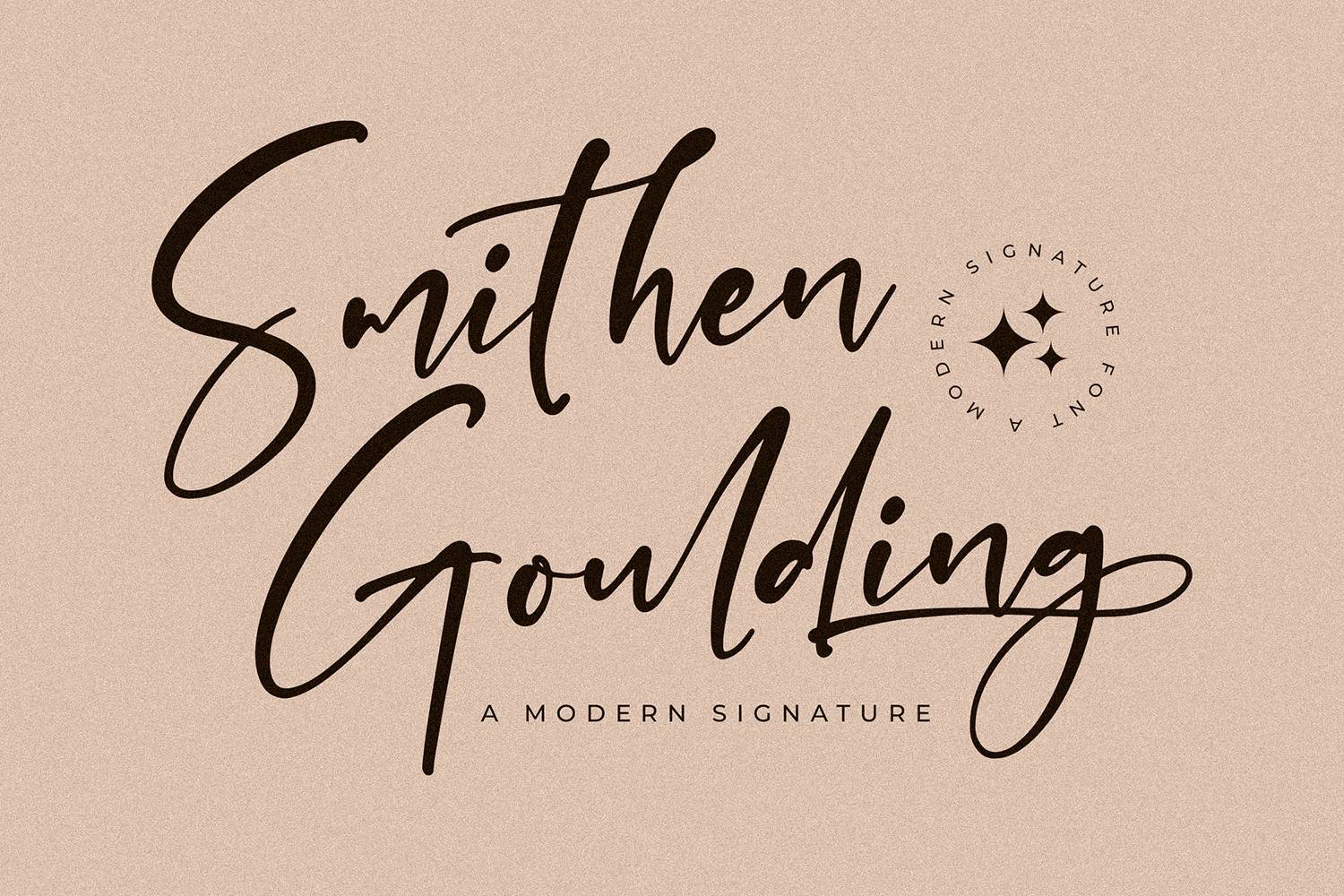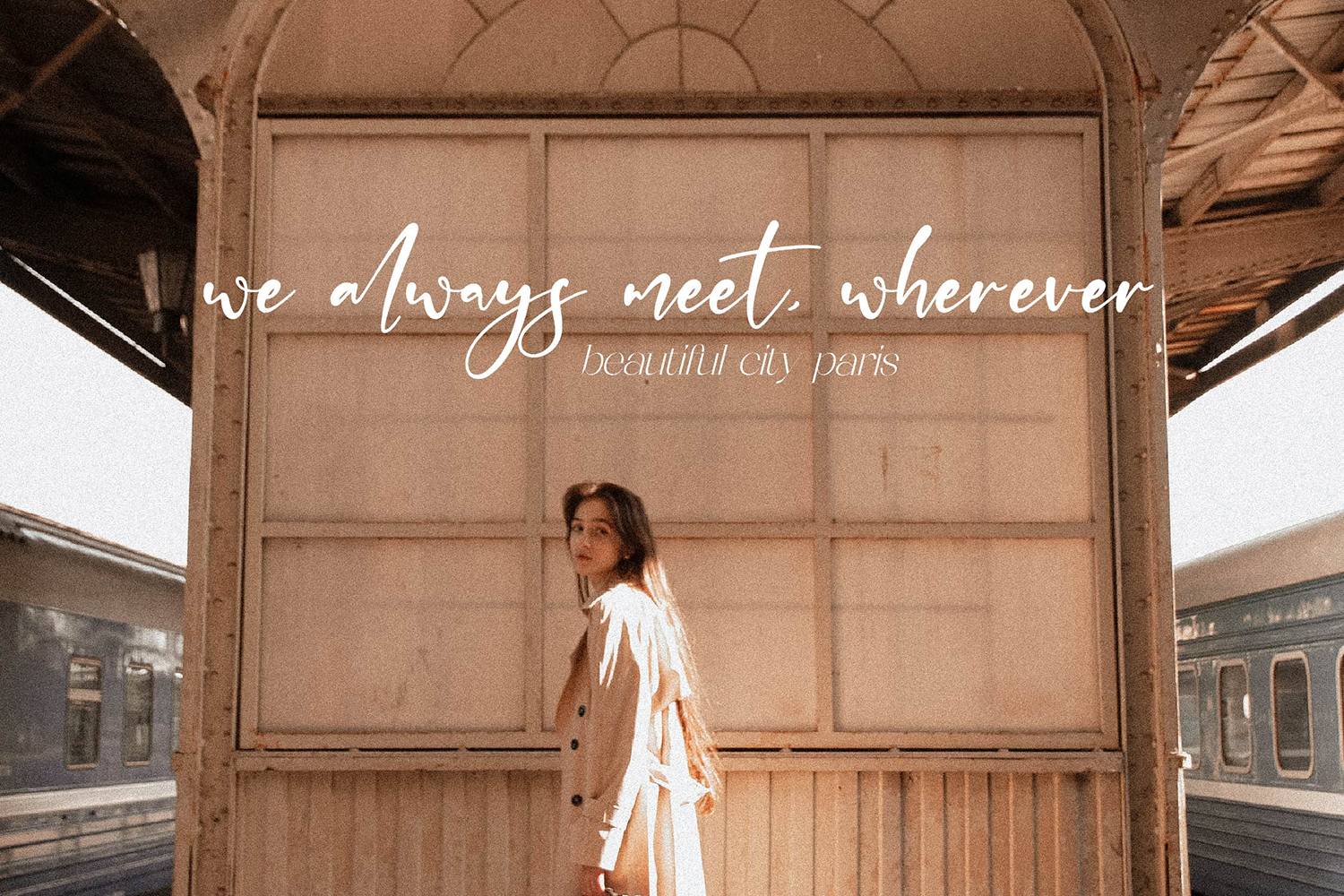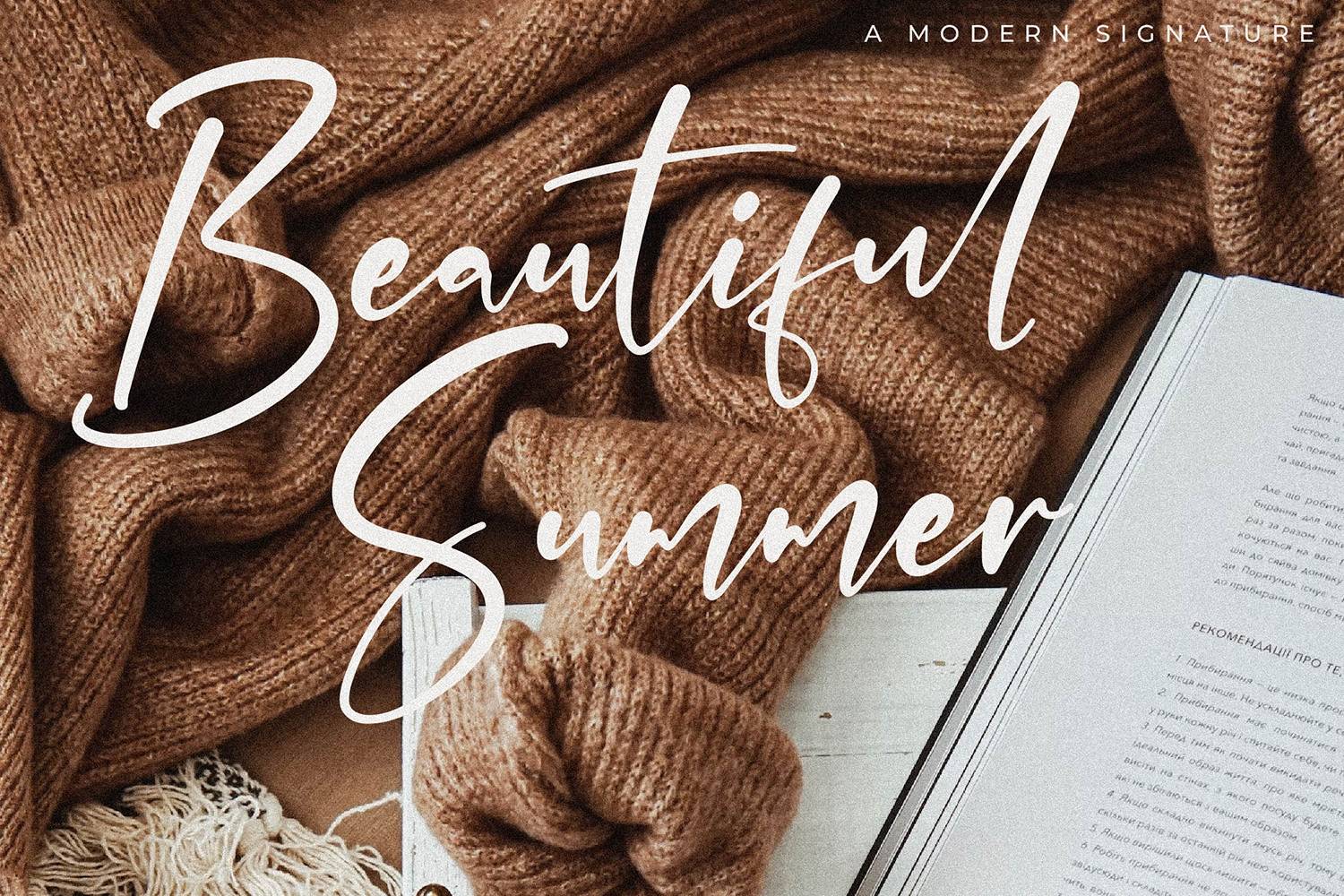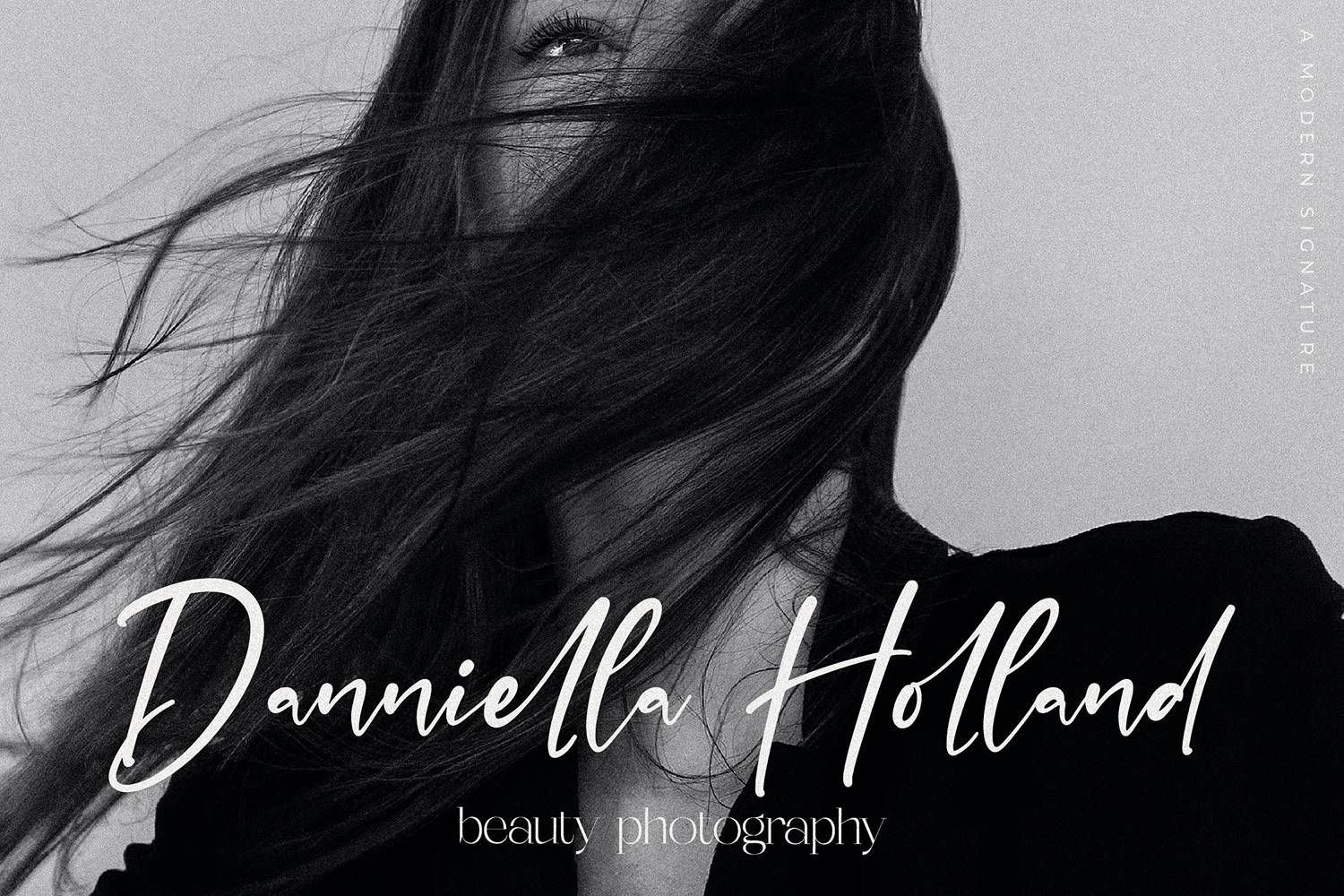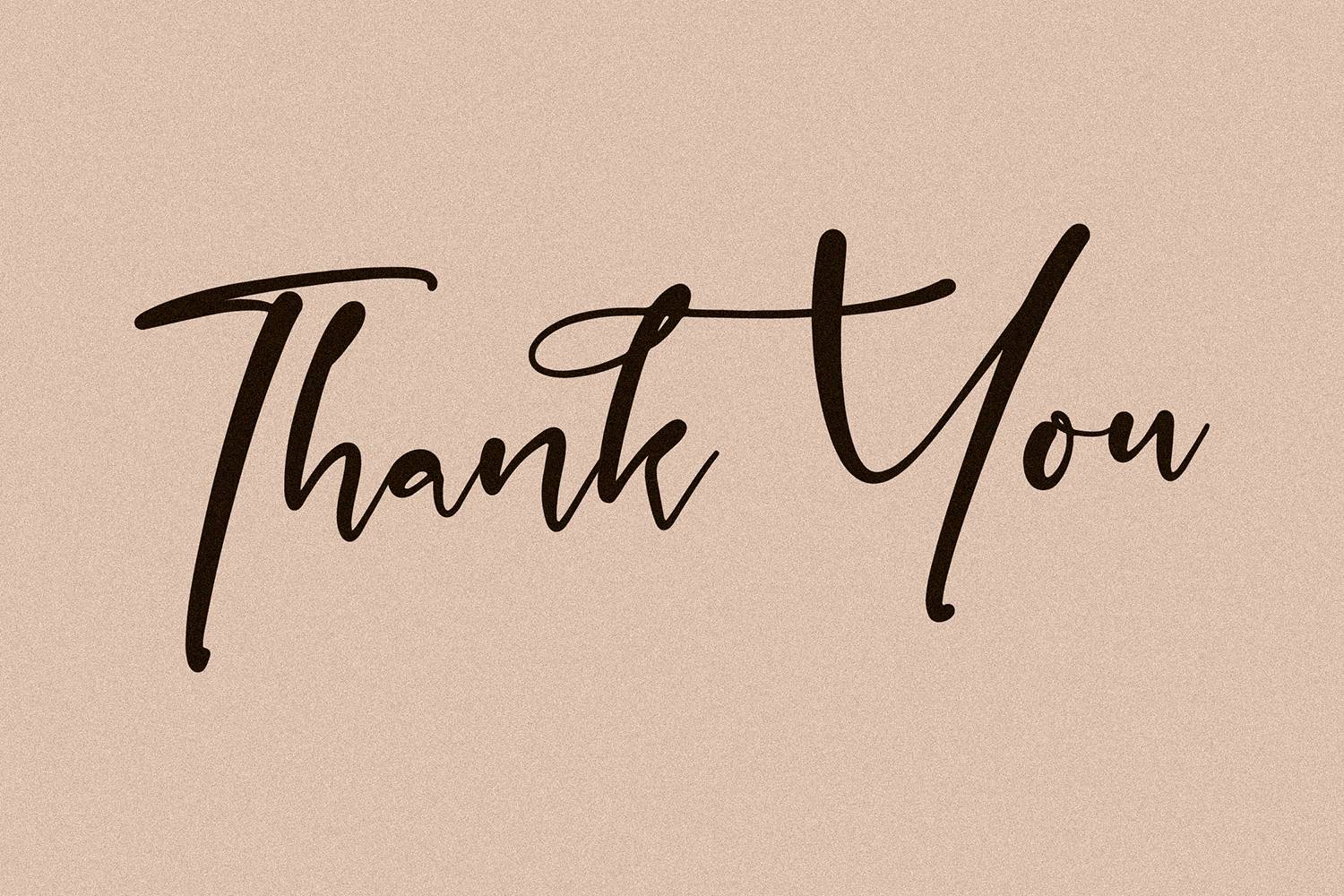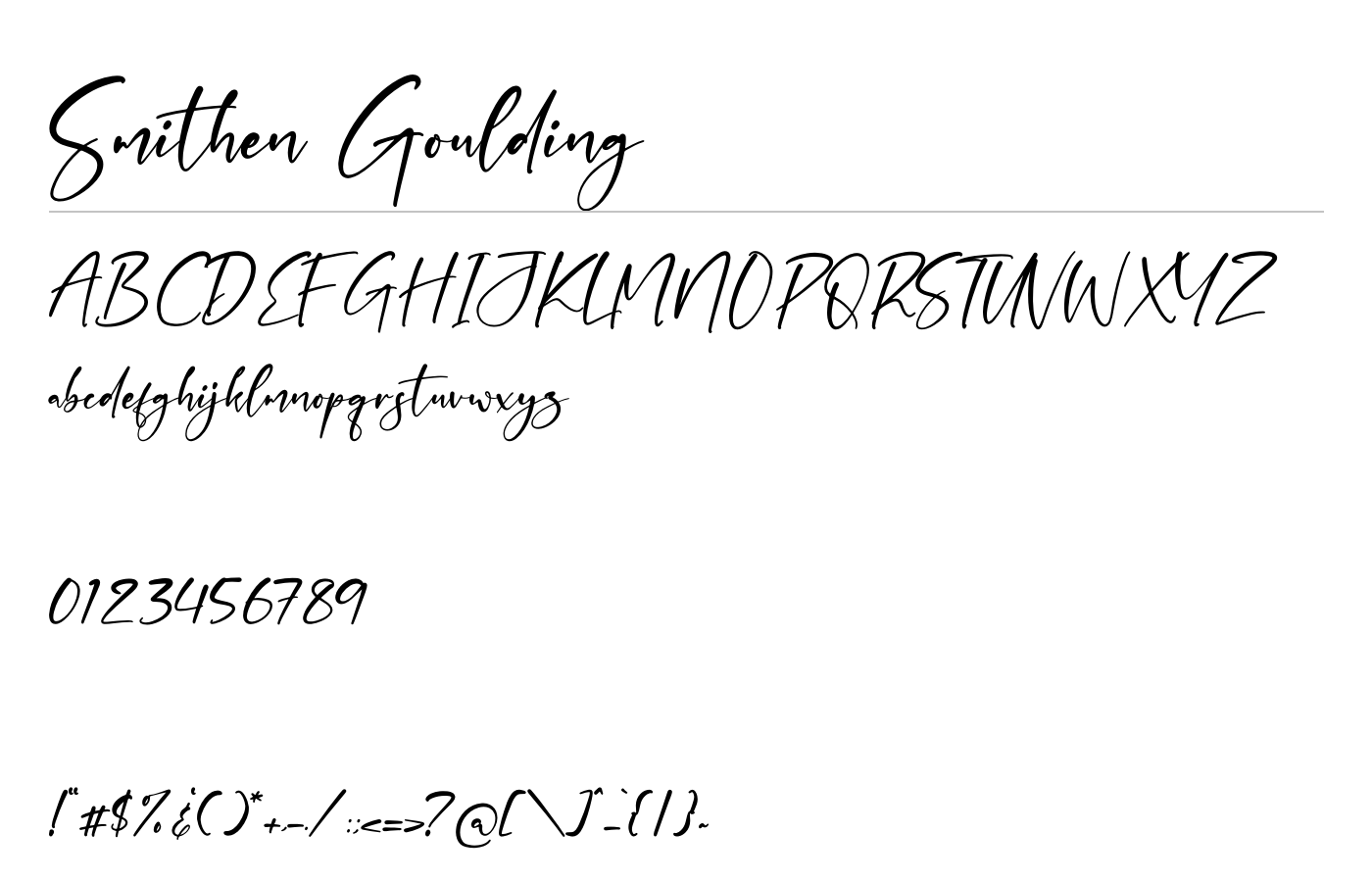
Smithen Goulding is an elegant script font with a modern, handwritten style characterized by its flowing, smooth lines and varying stroke thicknesses. Its lively, casual feel and refined, slender letterforms make it ideal for creative branding, invitations, and stylish editorial designs that require a touch of personality and sophistication. This font works beautifully in both personal and professional contexts where a warm, approachable yet chic look is desired.
Smithen Goulding Font
About Smithen Goulding Font